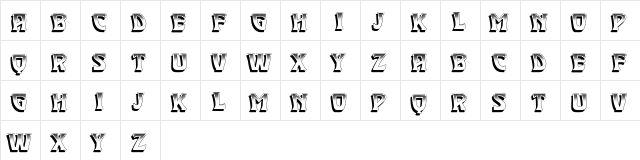
Waterway Regular
Design Context for Waterway Typeface
Waterway is a composed and adaptable typeface that performs quietly and consistently across a wide range of design contexts.